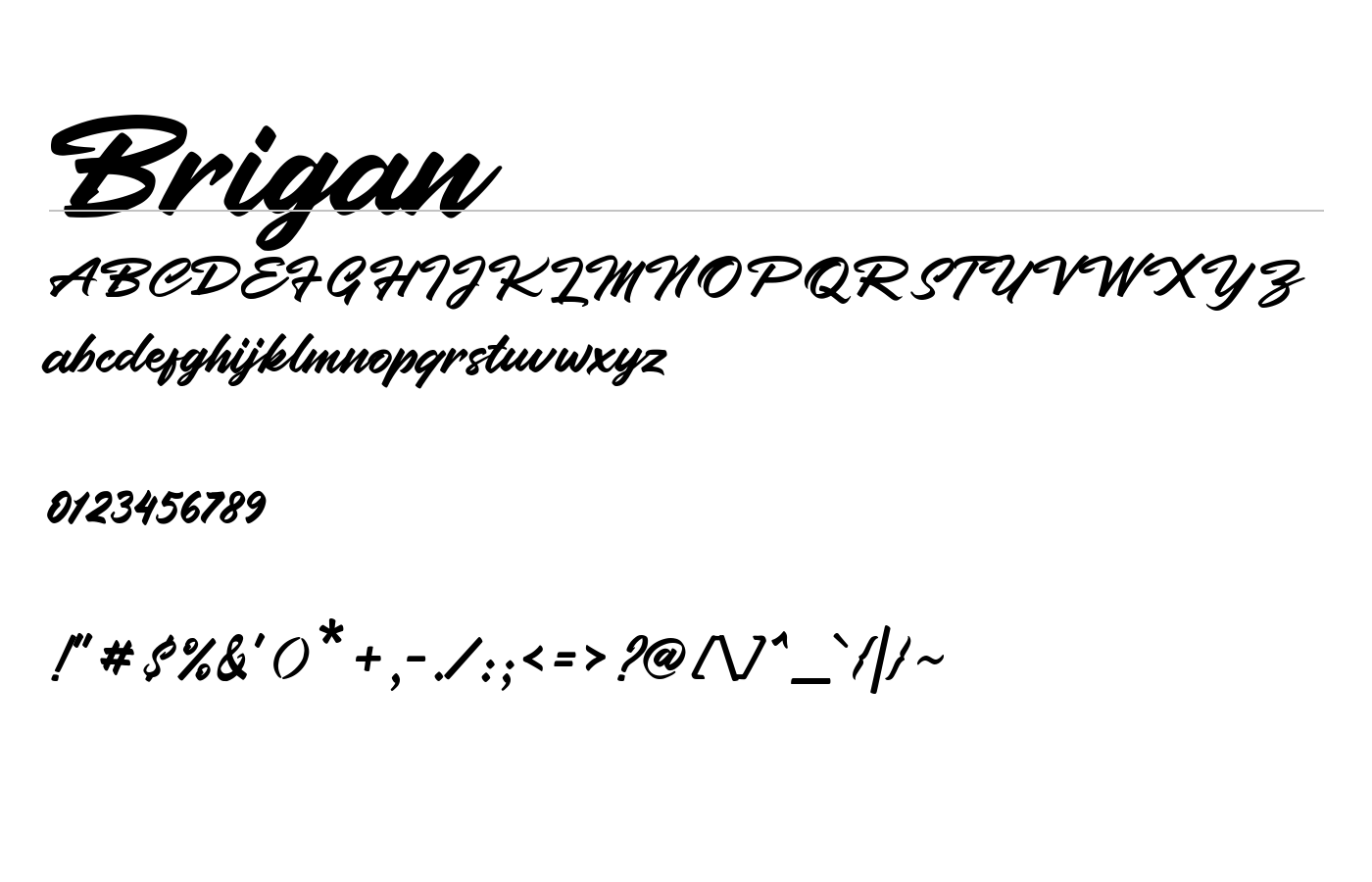
Brigan is a bold, script-style font with a lively, handwritten feel that combines smooth curves and dynamic strokes for an energetic yet elegant look. Its medium to high contrast and flowing letterforms make it ideal for branding, invitations, and headlines where a personal and stylish touch is desired. This font works well in creative projects seeking a warm, approachable vibe with a touch of sophistication.
Brigan Font
About Brigan Font